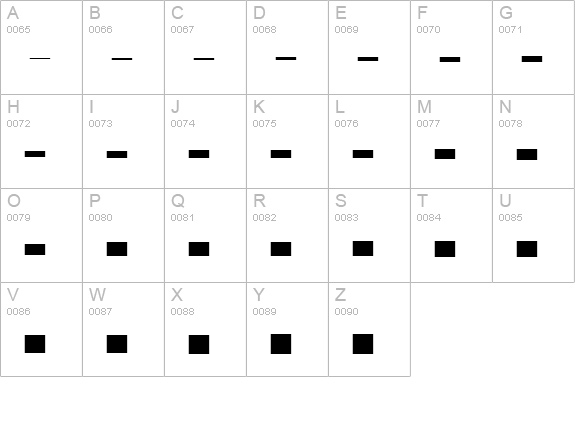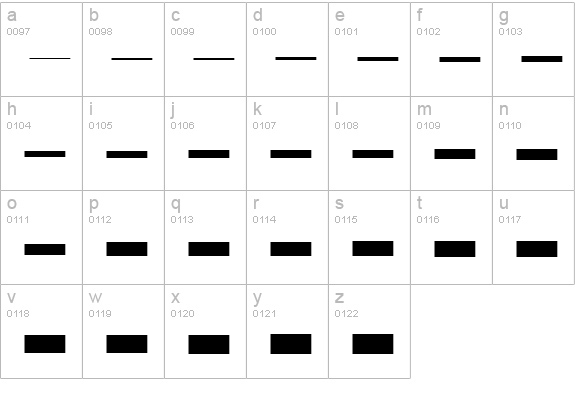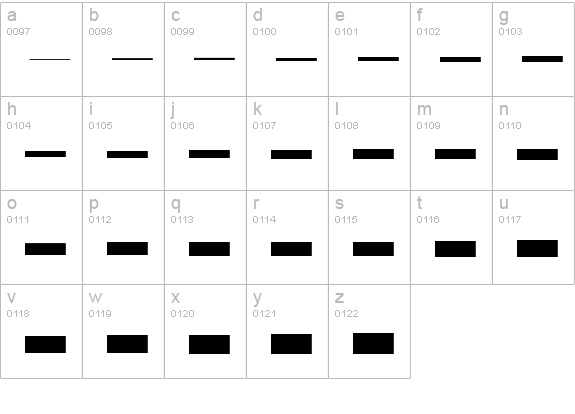
RulesFont Regular Font Details
RulesFont Regular is the standard, neutral variant in the RulesFont typeface family \xE2\x80\x94 well suited to general body text, paragraphs, and standard typographic work.
RulesFont Regular is a modern and sleek font that exudes sophistication and elegance. With its clean lines and balanced proportions, this font is perfect for adding a touch of class to any design project. Whether you're creating a logo, poster, or website, RulesFont Regular is sure to make a statement. The best part? RulesFont Regular is available for free download at FontsMarket.com. So you can easily access this stunning font and elevate your designs without breaking the bank. Don't miss out on the opportunity to enhance your projects with the timeless appeal of RulesFont Regular. Download it today and let your creativity shine!